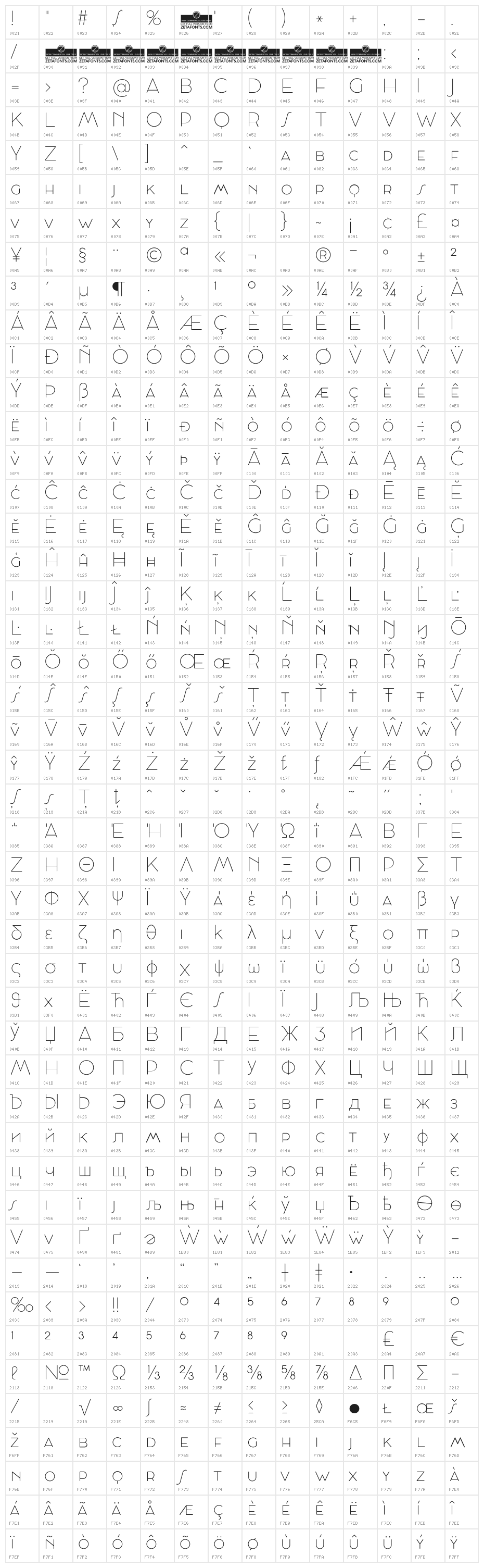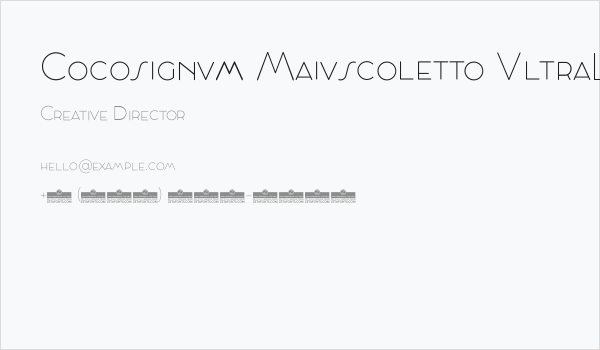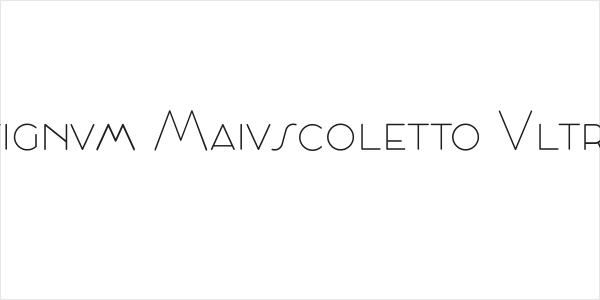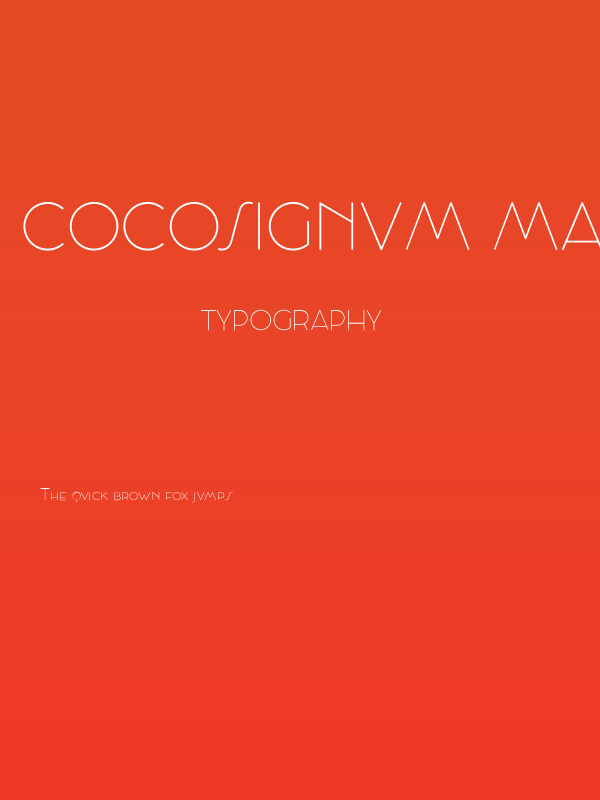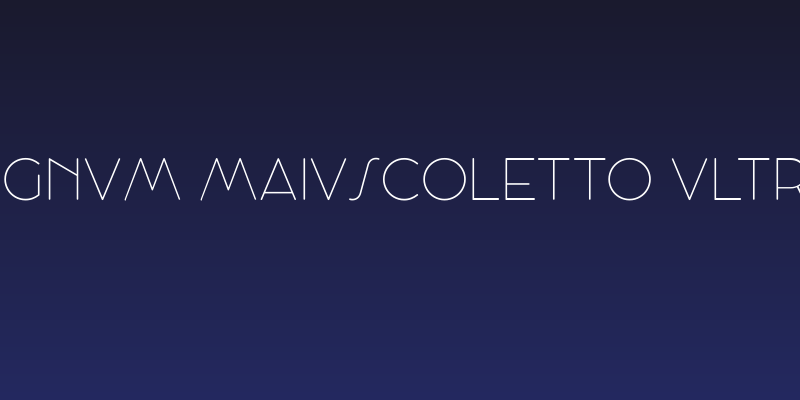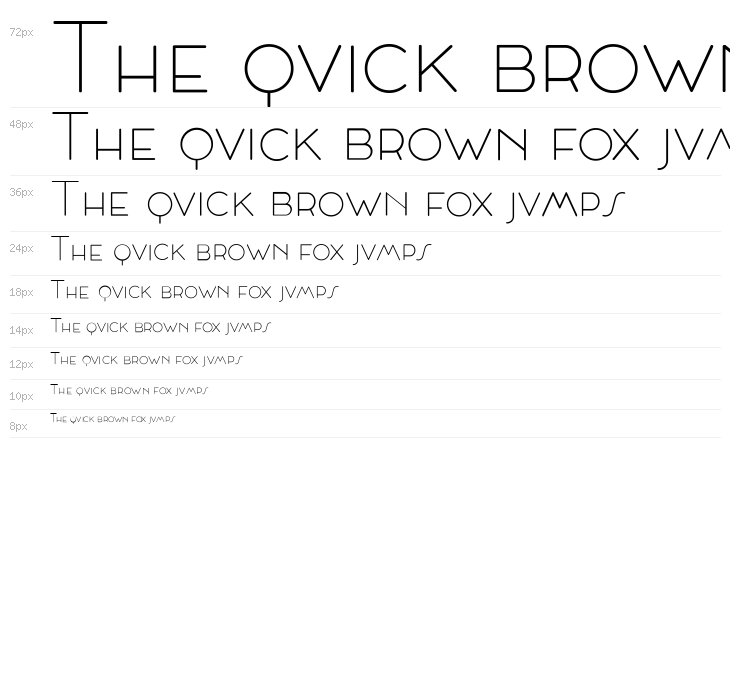
Cocosignum Maiuscoletto UltraLight Font
Cocosignum Maiuscoletto UltraLight Description
This typeface features a sleek, ultra-light design with a modern aesthetic. The characters are crafted with clean, geometric lines and minimal stroke contrast, giving it a refined and elegant appearance. The uppercase and lowercase letters maintain a consistent style, with a focus on simplicity and clarity. The numerals and special characters are designed to complement the overall look, ensuring uniformity across all glyphs. This font is ideal for projects that require a sophisticated and contemporary touch.
| Proposed Projects | Ideal for branding, editorial design, modern web design, and minimalist posters. |